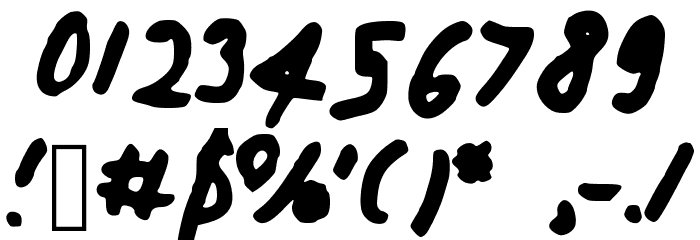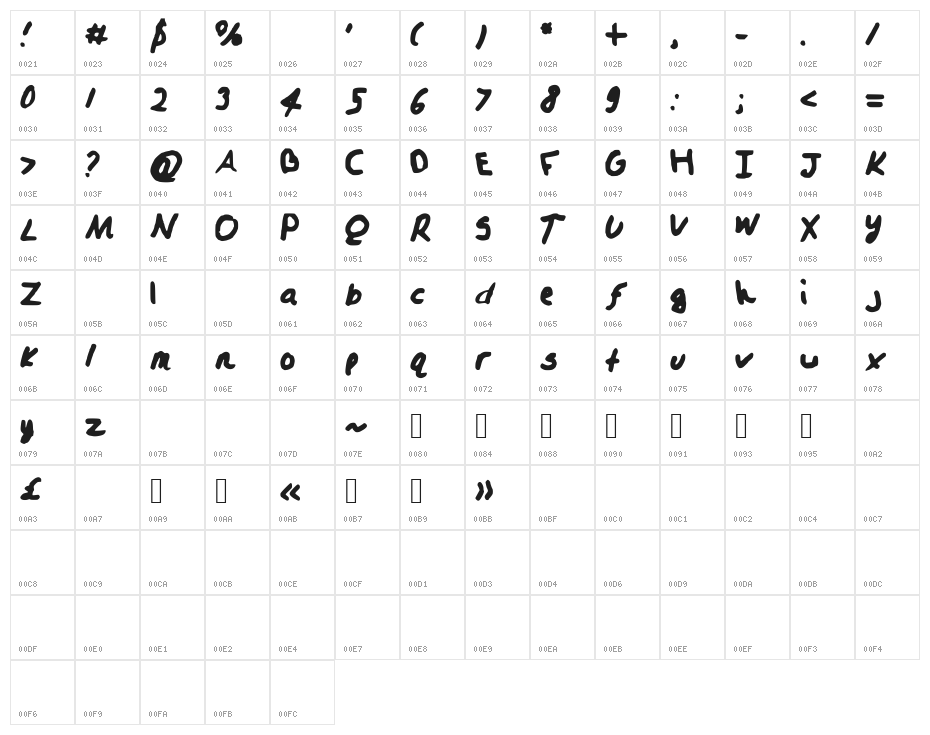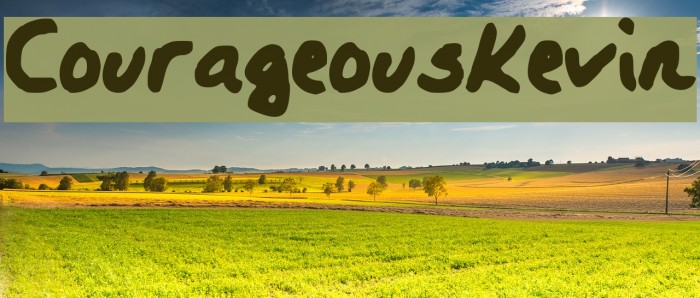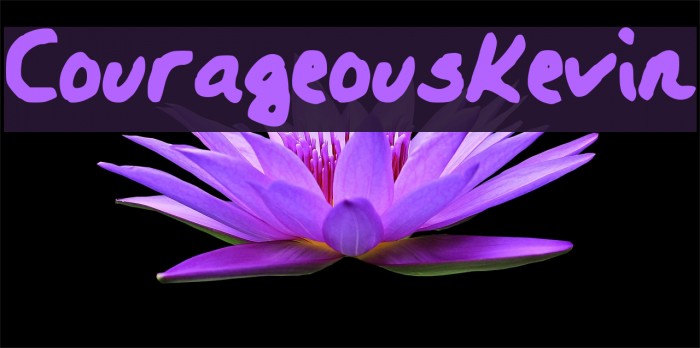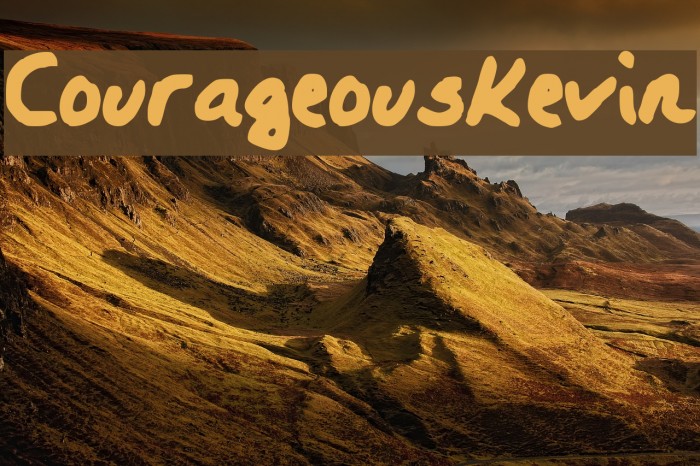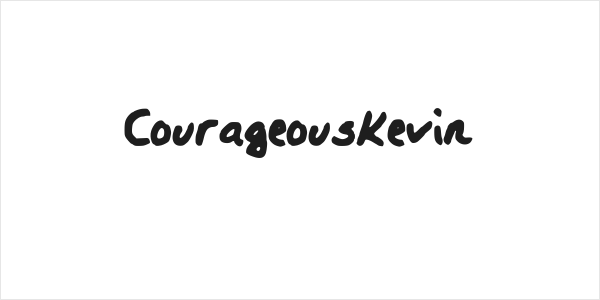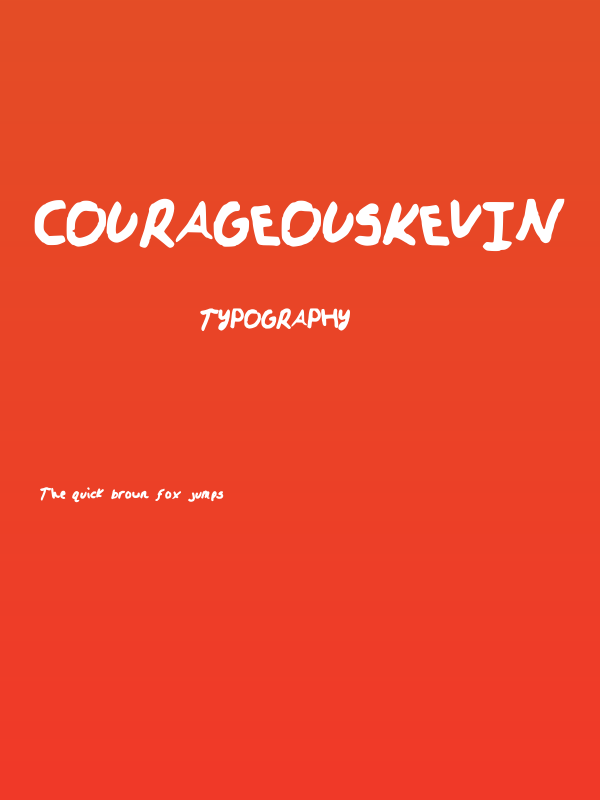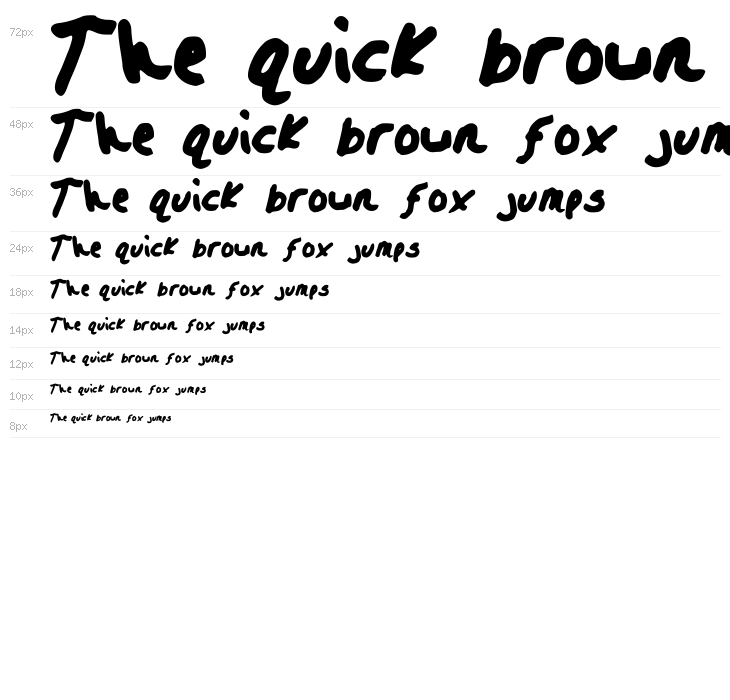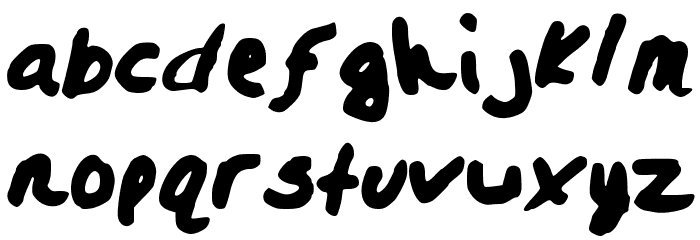
CourageousKevin Font
CourageousKevin Description
This font exudes a playful and bold handwritten style, characterized by its thick, uneven strokes and casual, informal appearance. The letters are slightly slanted, giving it a dynamic and energetic feel. The uppercase and lowercase letters maintain a consistent style, with rounded edges and a slightly irregular baseline that adds to its charm. The numerals and special characters follow the same whimsical design, making it suitable for creative and informal projects. Its unique style makes it stand out, perfect for designs that require a personal touch.